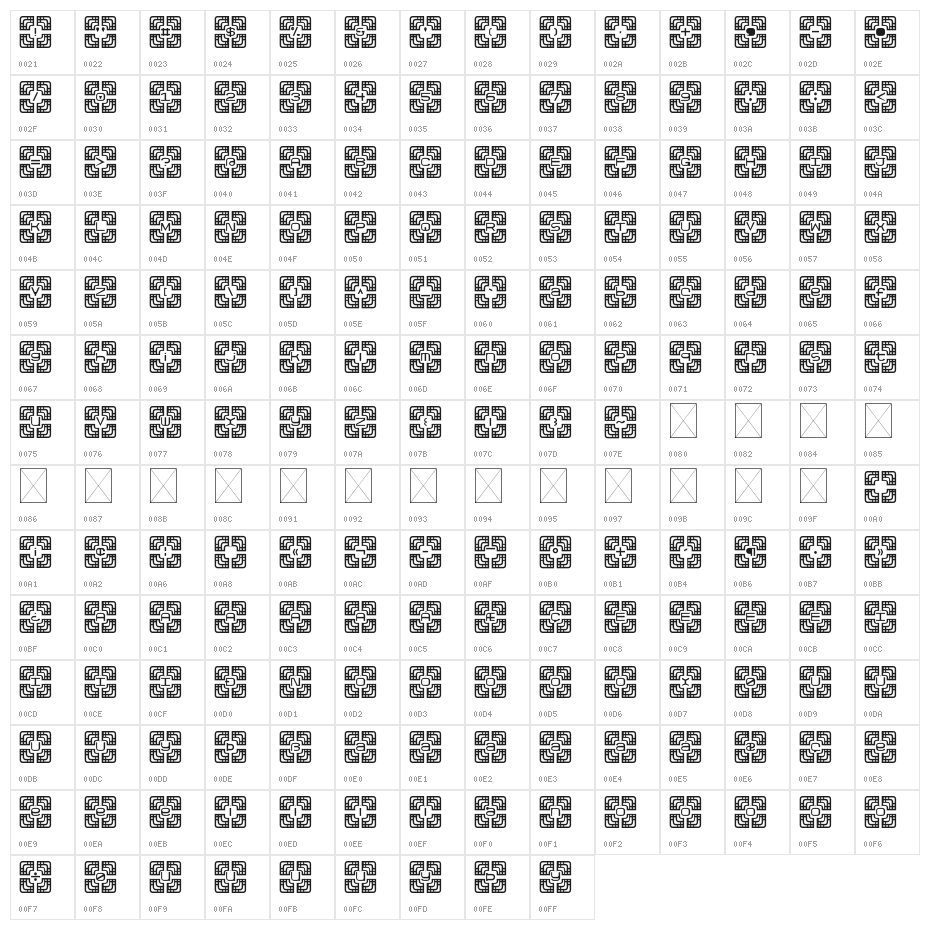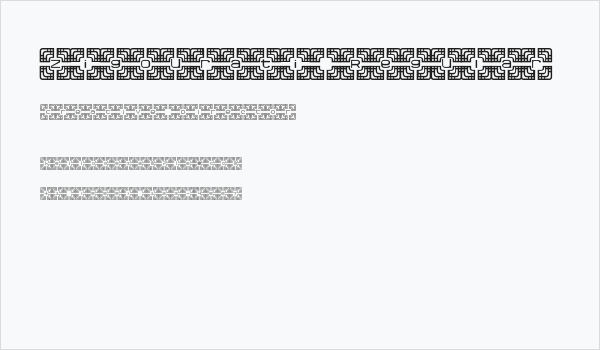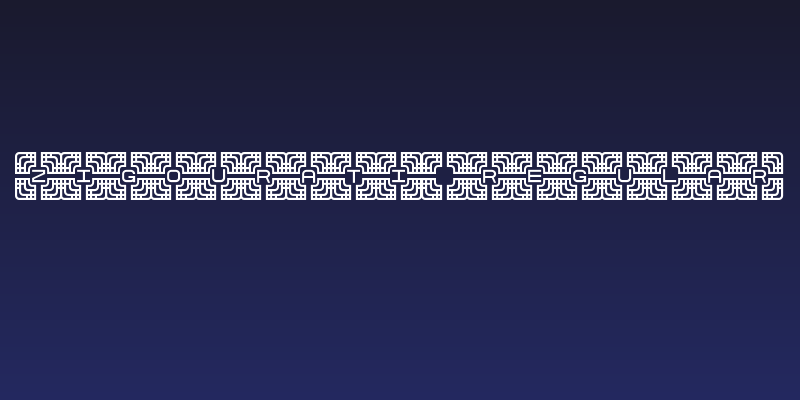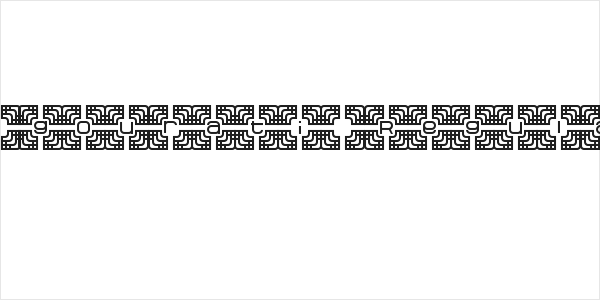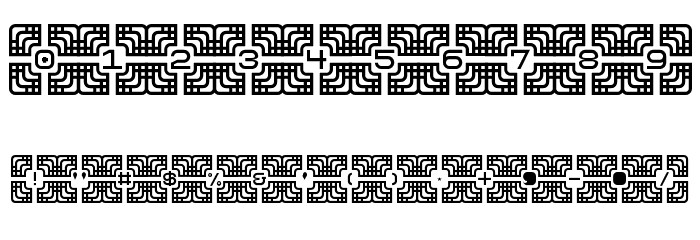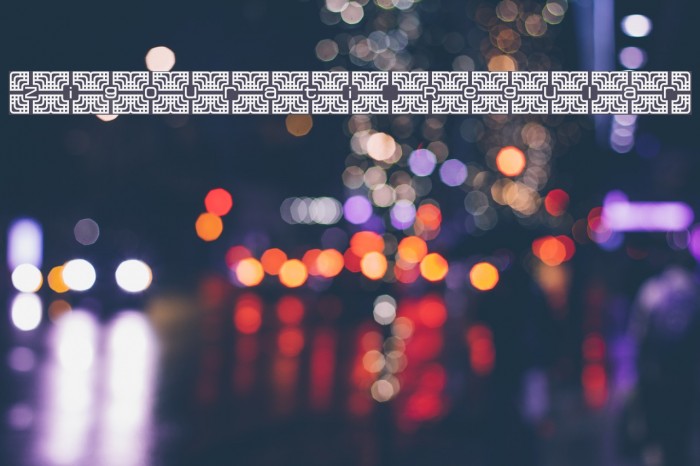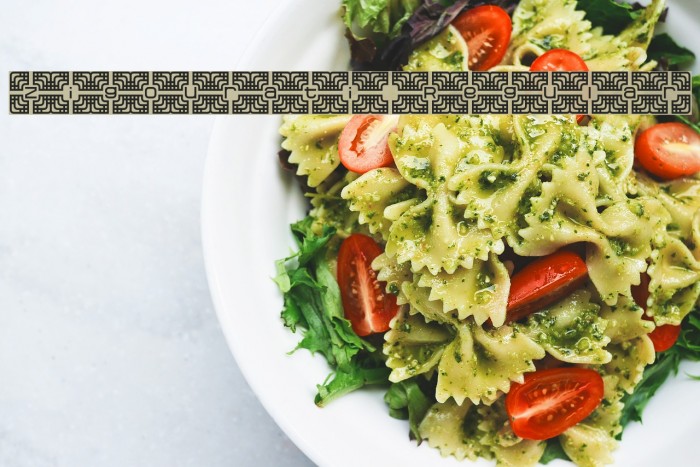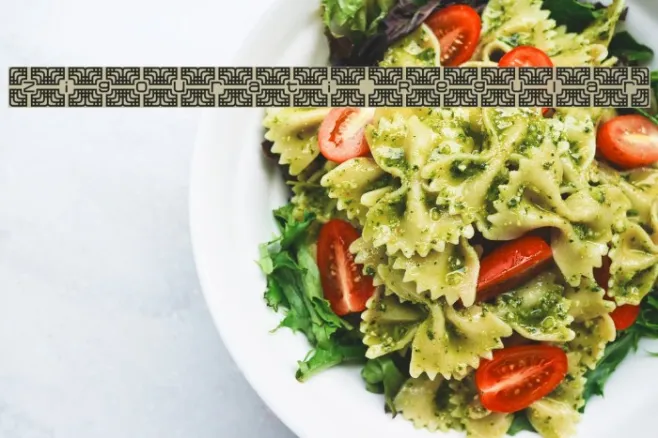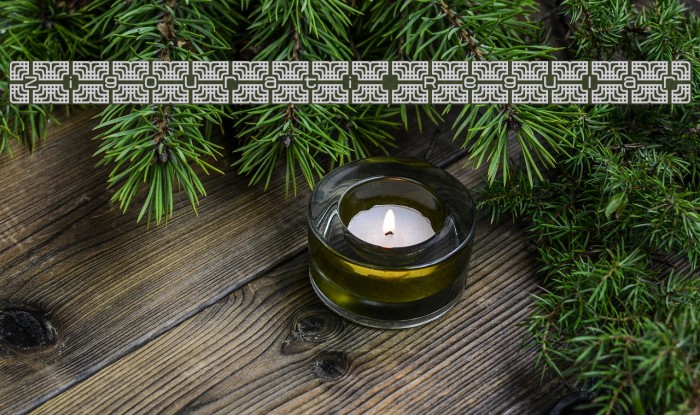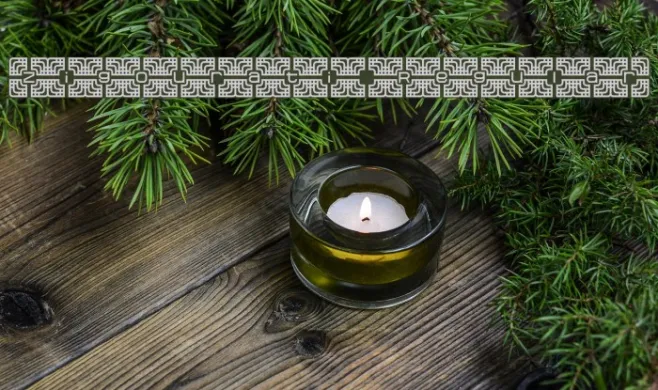
Zigourati Regular Font
Zigourati Regular Description
This font features a highly decorative and intricate design, characterized by a maze-like pattern that forms each character. The letters and numbers are enclosed within a square, creating a uniform and structured appearance. The style is reminiscent of ancient architectural motifs, with a strong geometric influence. Each character is composed of interlocking lines and shapes, providing a sense of depth and complexity. This font is not suitable for body text due to its elaborate design but can be an excellent choice for decorative purposes.
| Use Case | Logos, Posters, Invitations |
| Proposed Projects | Ideal for decorative projects, such as posters, invitations, or branding that requires a unique and eye-catching typeface. |